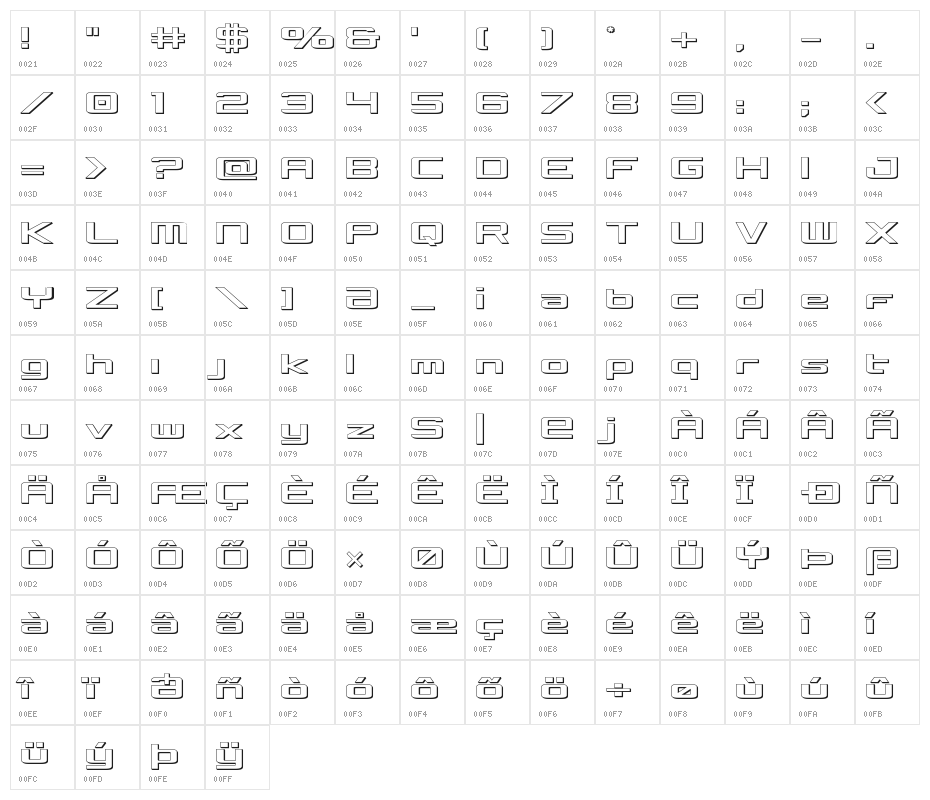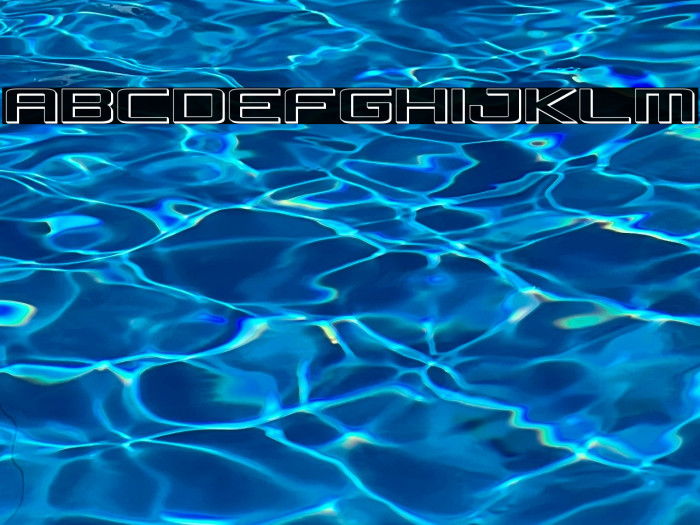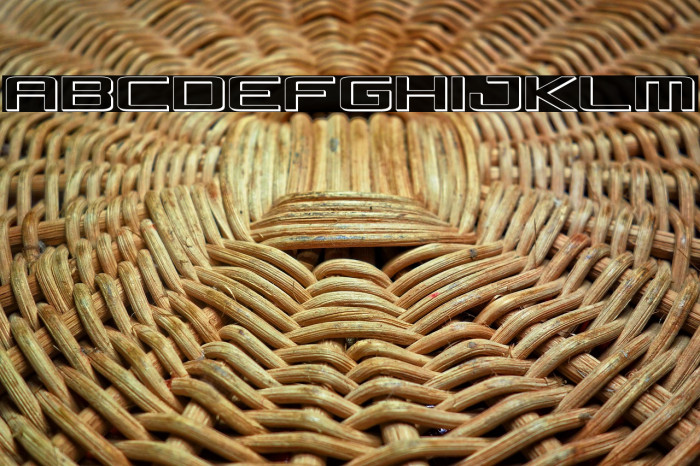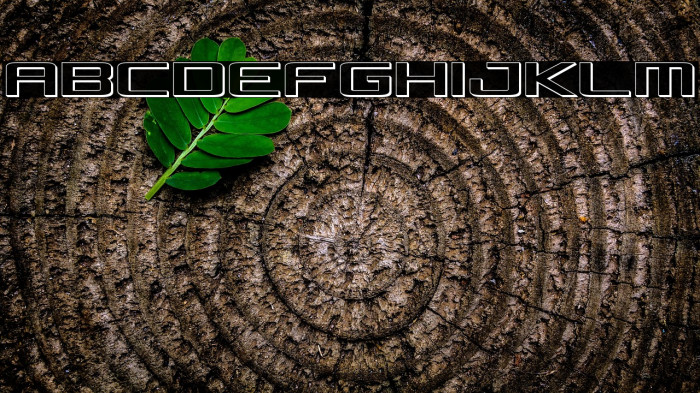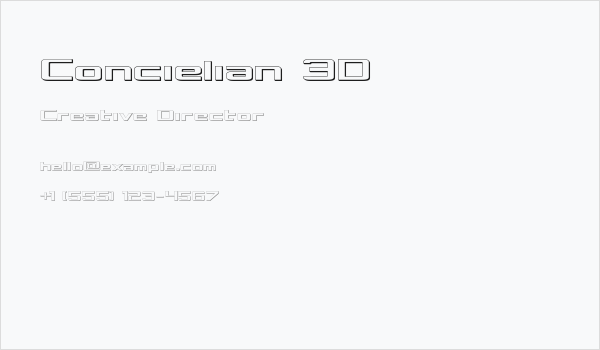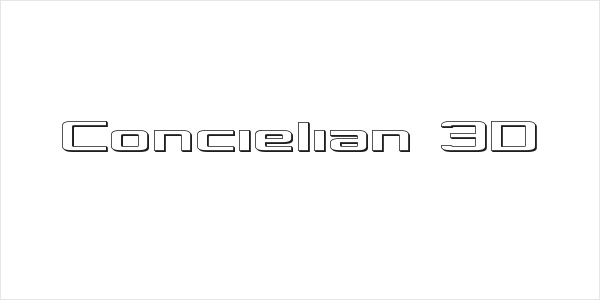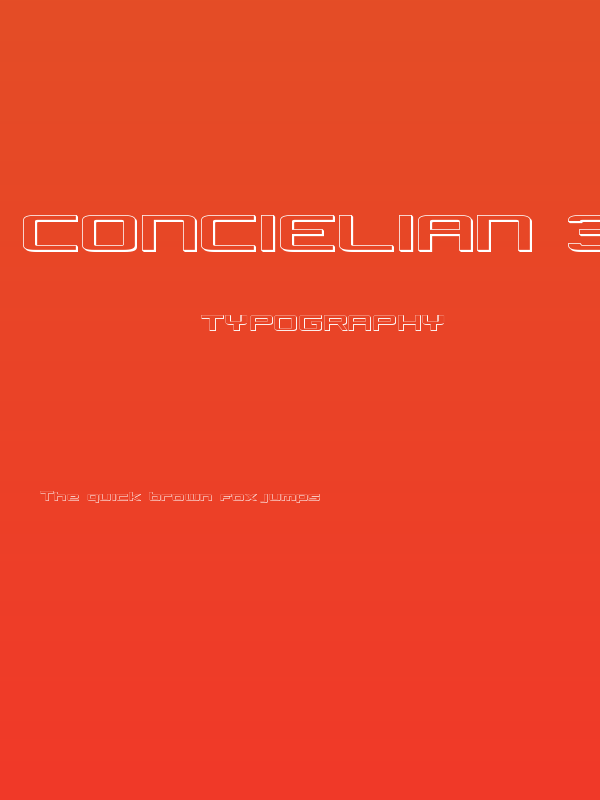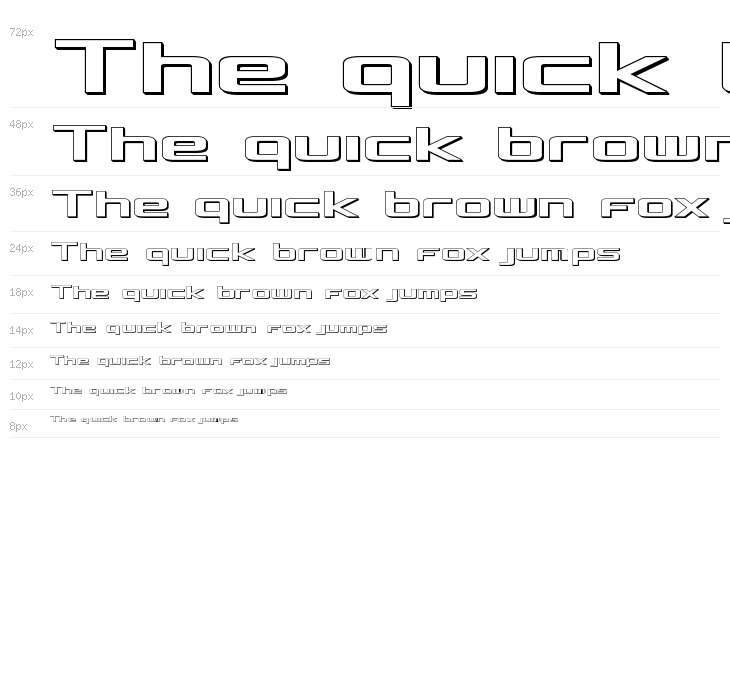
Concielian 3D Font
Concielian 3D Description
This font features a futuristic and geometric design with a three-dimensional effect. The characters are outlined, giving them a hollow appearance that adds depth and visual interest. The uppercase and lowercase letters maintain a consistent style, with sharp angles and clean lines. The numerals and special characters follow the same design principles, ensuring uniformity across all glyphs. This font is ideal for projects that require a modern and tech-inspired aesthetic.
| Proposed Projects | Ideal for tech branding, sci-fi posters, video game titles, and digital interfaces. |